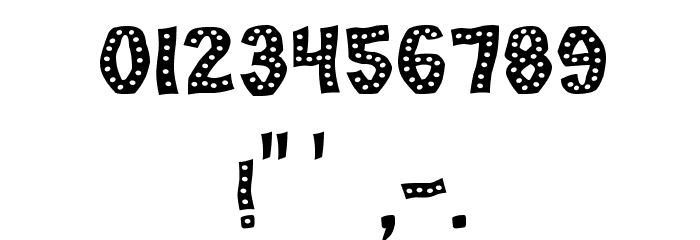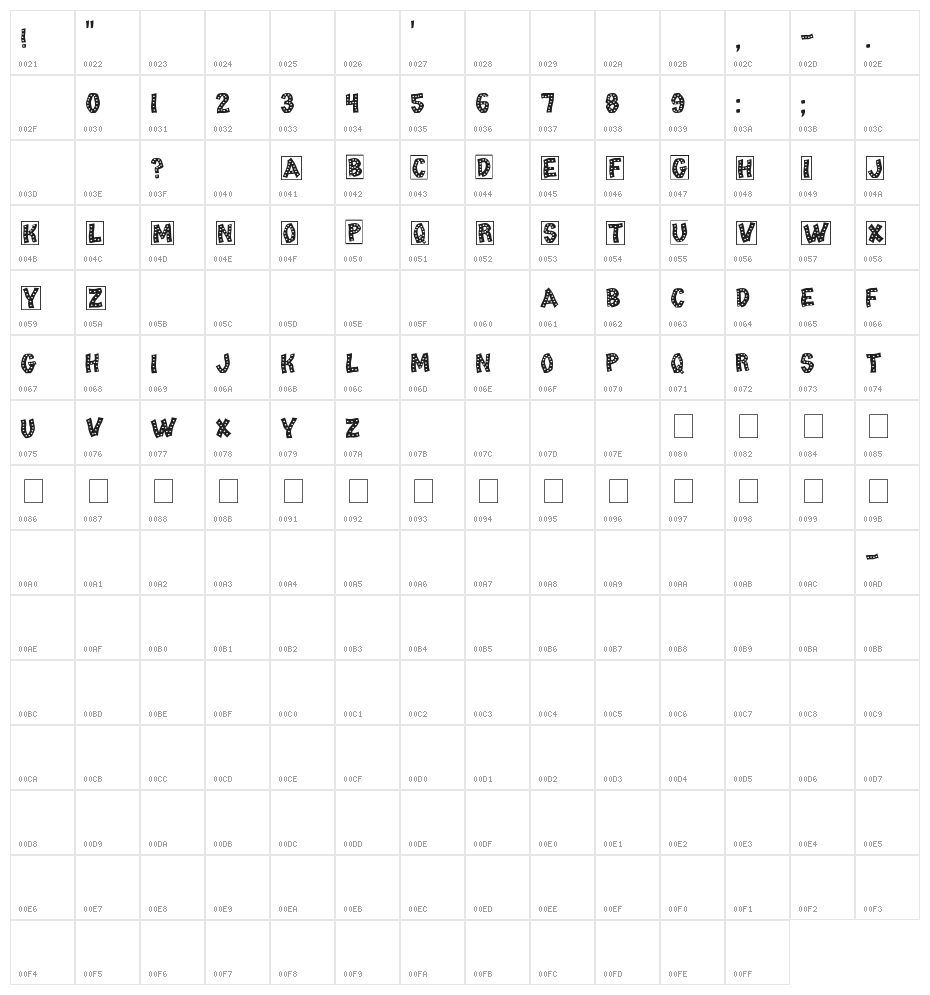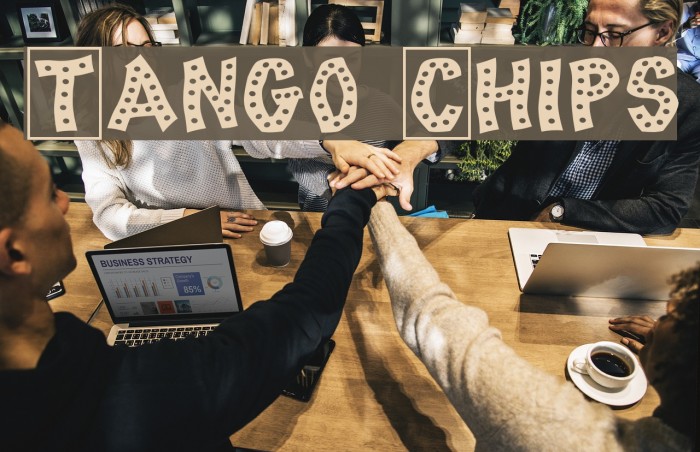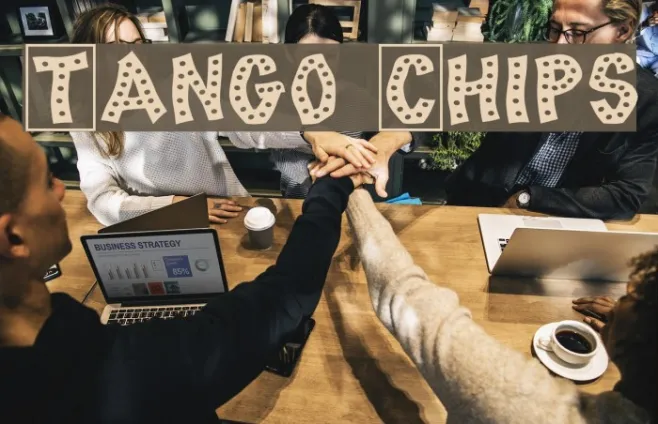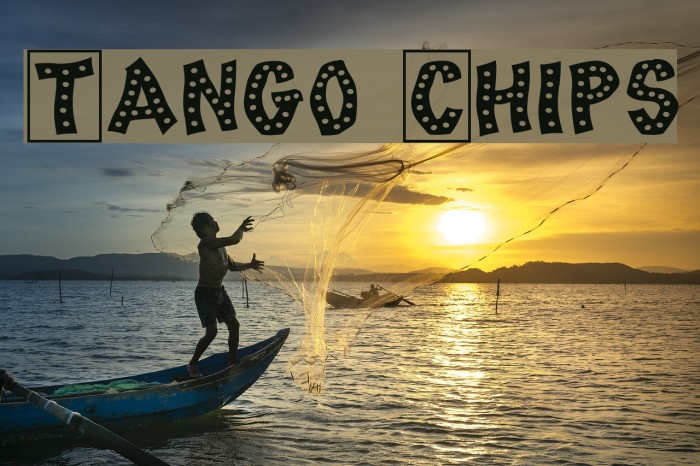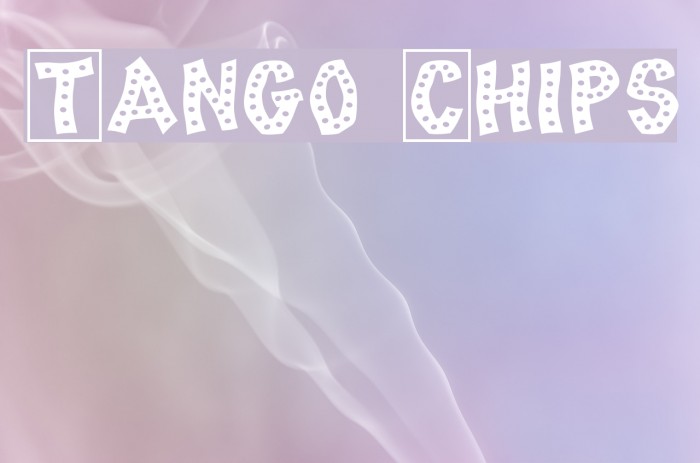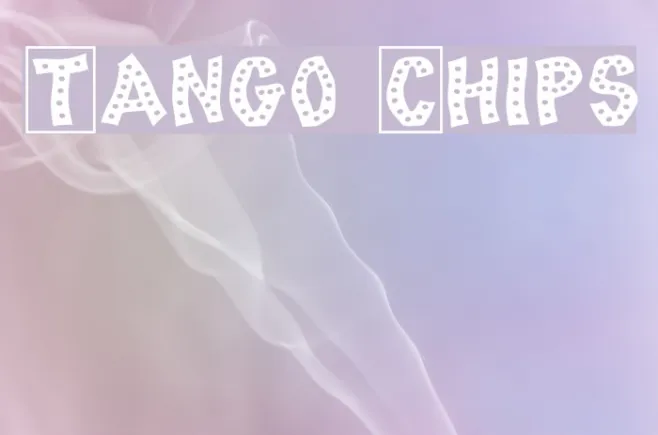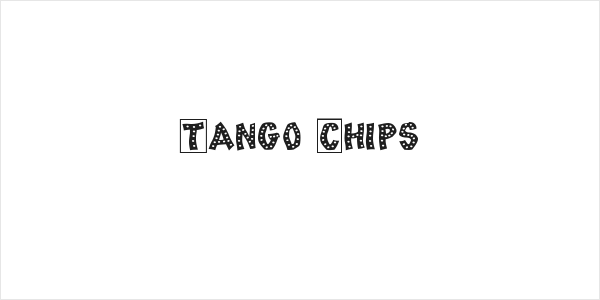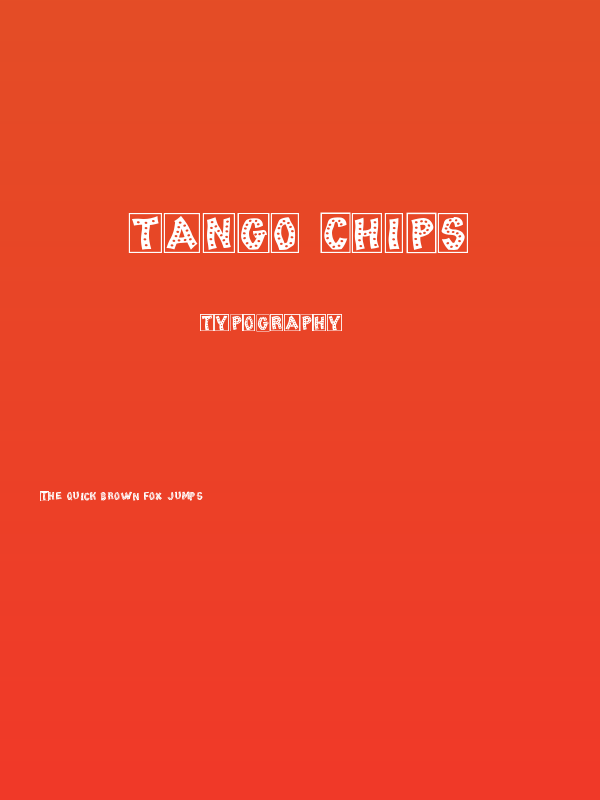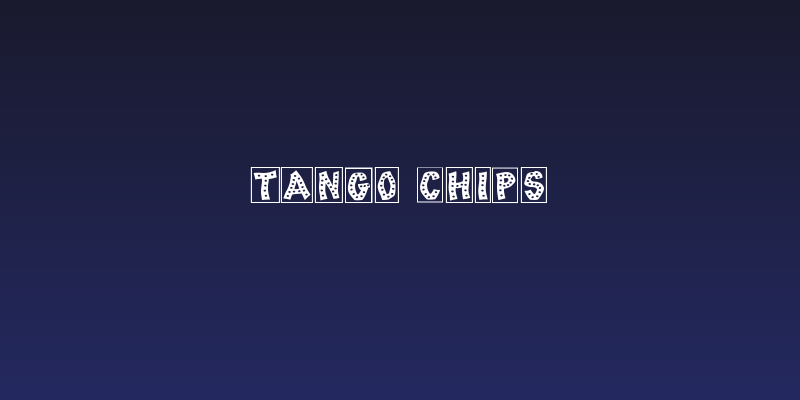
Tango Chips Font
Tango Chips Description
This playful and whimsical font features bold, uppercase and lowercase letters adorned with polka dots, creating a lively and fun appearance. The characters are slightly irregular, adding to the casual and informal feel. The numbers and special characters maintain the same dotted style, ensuring consistency throughout the typeface. This font is perfect for projects that require a touch of humor and creativity, making it ideal for children's books, party invitations, and playful branding. Its decorative nature makes it stand out, while the boldness ensures readability.
| Proposed Projects | Children's books, party invitations, playful branding, creative posters. |